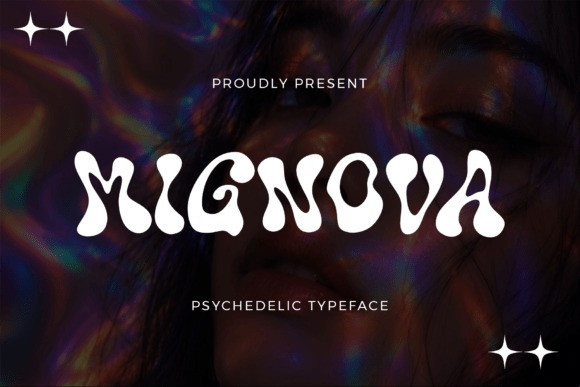
Mignova Font
Mignova Font a trip into the mesmerizing world of retro-futurism with Mignova, a premium psychedelic display typeface designed to warp the boundaries of standard typography. Masterfully blending the melting, fluid aesthetics of late-1960s counterculture with a clean, contemporary layout rhythm, this font features heavy, distorted liquid forms that ebb and flow organically. Its bold, trippy silhouettes stretch and bend, creating an enchanting visual rhythm that looks completely alive. It is an absolute powerhouse asset for cutting-edge fashion lookbooks, experimental indie music album covers, trippy streetwear graphics, avant-garde cosmetics packaging, nightclub event posters, and digital artwork headings. Give your branding an unforgettable, dreamlike charisma that effortlessly commands attention.